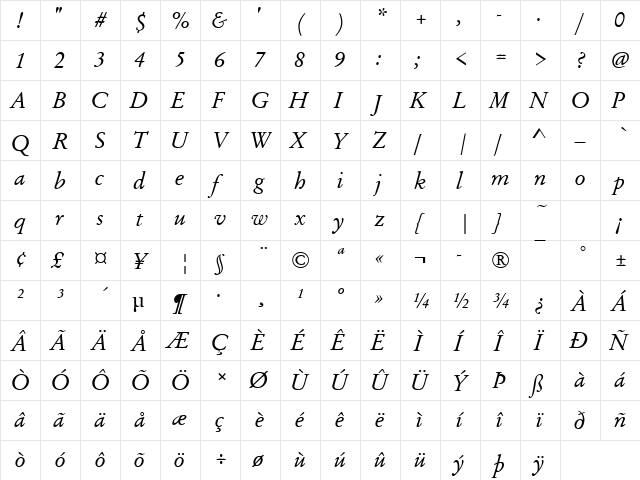
GaramondNo2TReg Italic
Design Context for GaramondNo2TReg Typeface
GaramondNo2TReg offers clean, dependable letterforms without strong stylistic allegiance, making it a practical choice for designers who need flexibility. Its italic angle brings a sense of urgency and motion to the letterforms.
Pro Tip: Use GaramondNo2TReg for emphasis, pull quotes, and subheadings where its slanted energy can add rhythm to the layout.